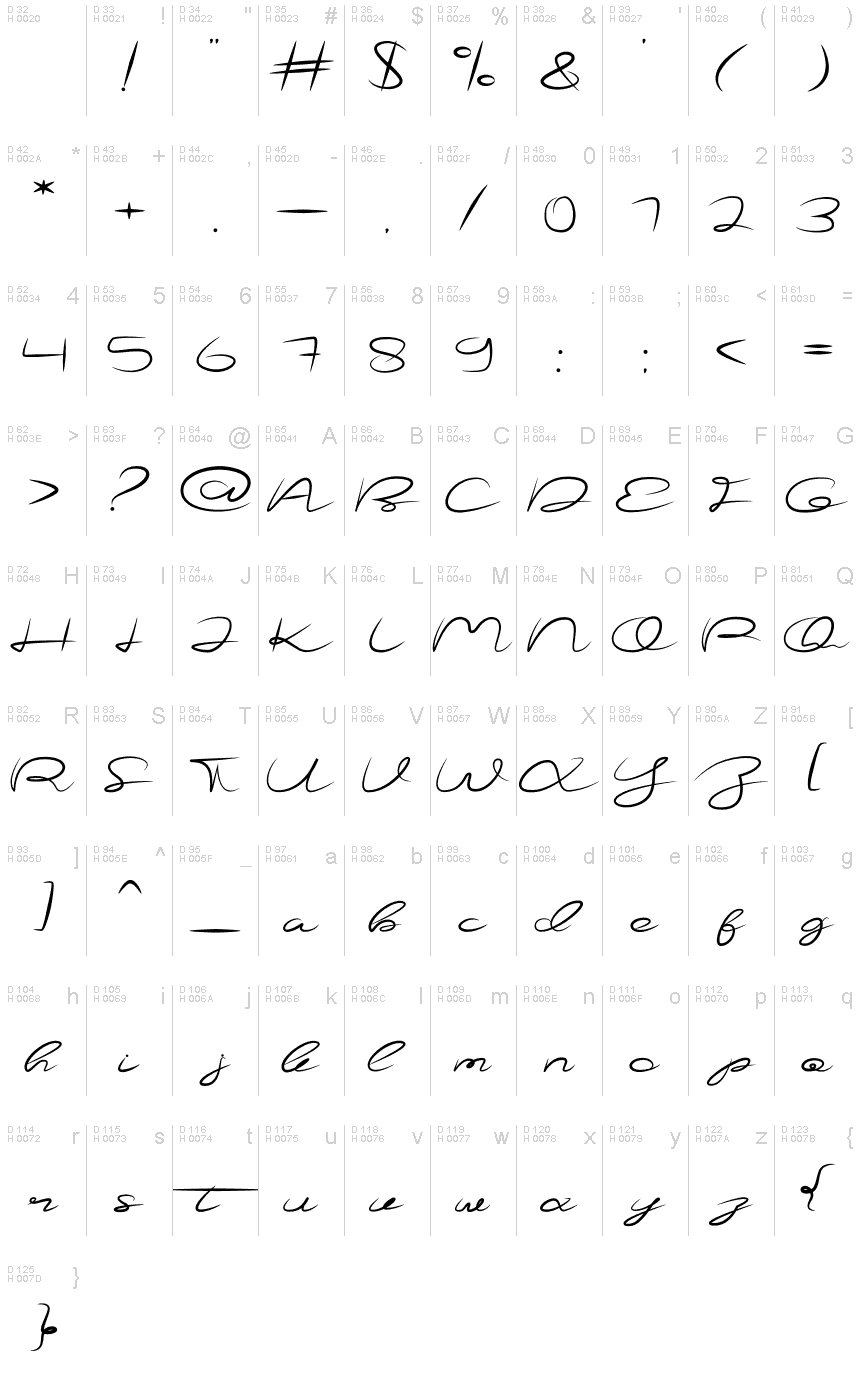
The Doctor
The Doctor font by Lontong Lodeh is a charming handwritten typeface that exudes elegance and sophistication. Its light weight and expanded width make it perfect for projects that require a delicate touch, such as wedding invitations or greeting cards. The flowing curves of this font bring a sense of grace to any design, making it ideal for fashion or beauty projects. With its unique style, The Doctor font is versatile enough to be used in various creative projects, from book covers to branding materials. Take your designs to the next level with The Doctor font!